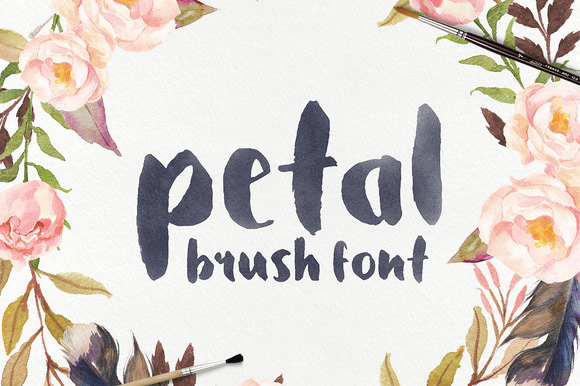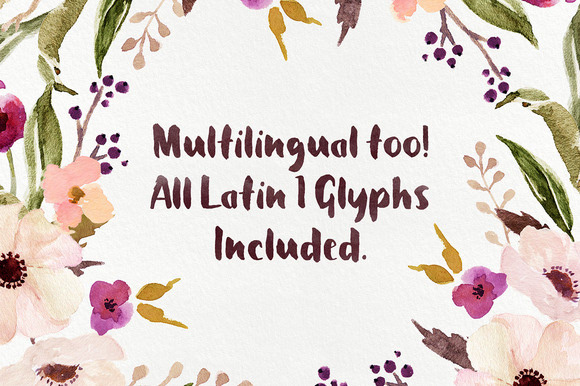
Petal is a beautiful brush font that was handcrafted by yours truly with a Japanese brush pen. The font is full of character and personality and sits comfortably with modern trends. All efforts were used to preserve the handcrafted authenticity of Petal and the proof can clearly be seen in the outcome!
One of my new personal favorites. Petal, covers all latin 1 glyphs and works brilliantly when combined with my new watercolor brush set - http://crtv.mk/r09PQ